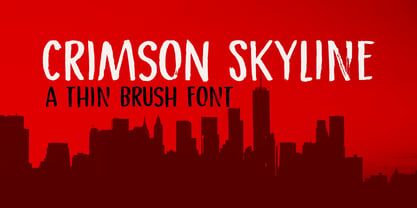
Crimson Skyline
by Hanoded
About Crimson Skyline Font Family
Crimson Skyline is a thin brush font. I used a pencil and Chinese ink to paint the letters. Crimson Skyline comes with double letter ligatures for the lower case letters. And the name? Well, it just has a nice ring to it. That’s all!
About Hanoded
Hanoded is a type foundry based in The Netherlands and run by David Kerkhoff. After finishing his journalism studies, David traveled extensively and ended up in Israel where he stayed for some years. David had a lot of jobs – zookeeper, goldsmith, artist and cook (to name a few), but settled on working as a tour guide and photographer. David specializes in hand printed typefaces and uses brushes, pens, ink and paint to create his – sometimes scary looking – fonts. He lives in a wee hamlet near the Rhine river, with his wife, three kids, a handful of extremely spoiled chickens and two guinea pigs called Cookie and Chippie.The Premium foundry page can be viewed https://www.myfonts.com/a/font/premium-font-collections/hanoded